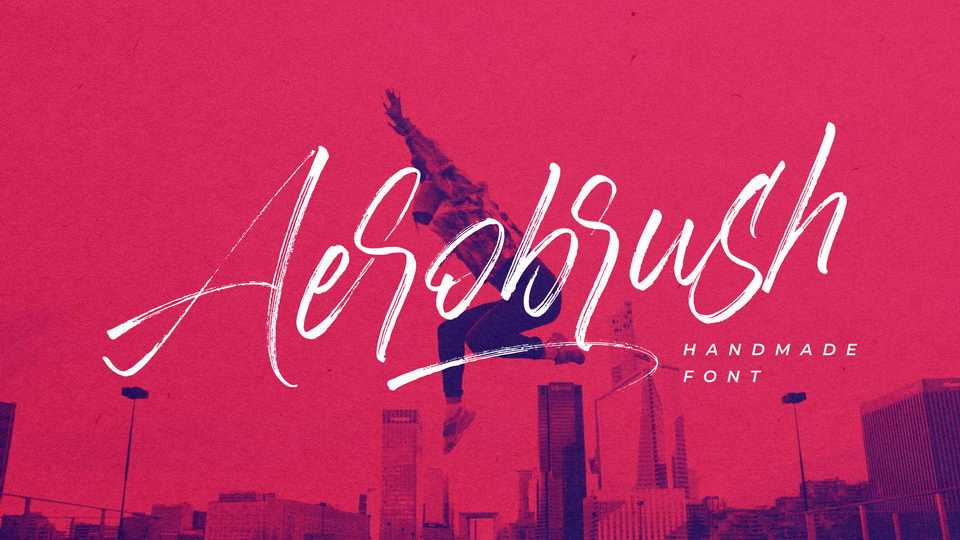
Download Aerobrush font, a handwritten script that displays a modern, youthful and natural impression. Aerobrush font has a detailed texture brush that makes it even more distinctive.
Designer: Letteralle Studio